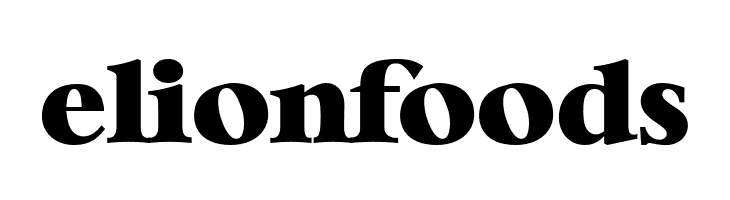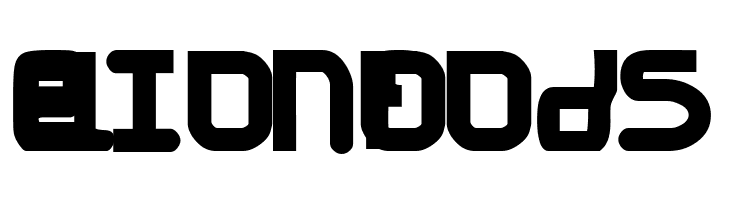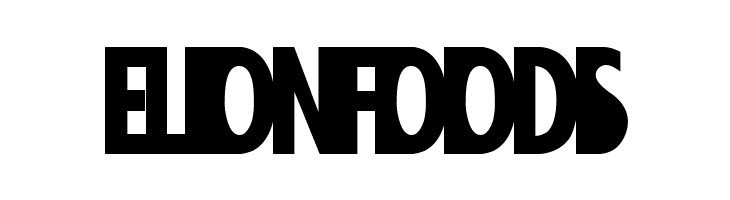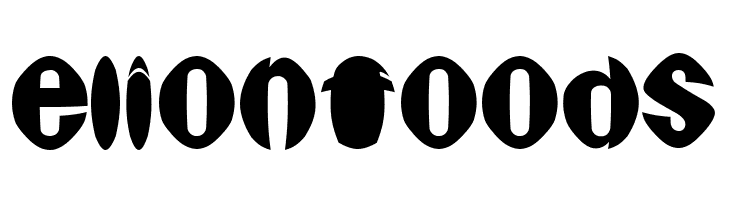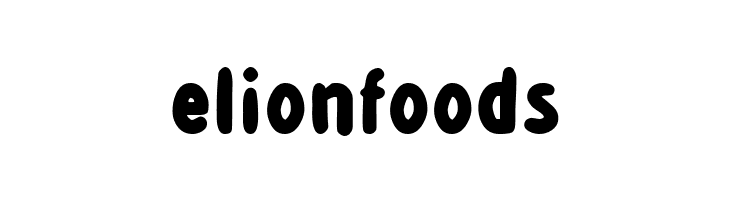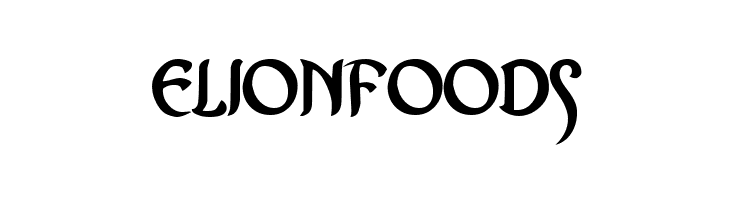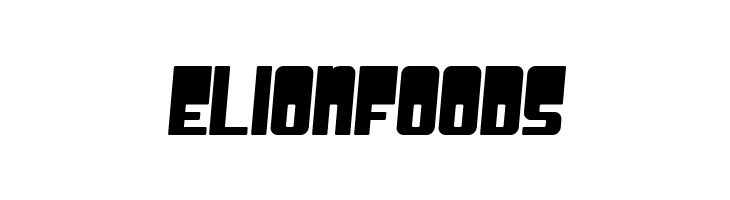
A playful, bold font with rounded edges and a whimsical style.
A bold, geometric font with strong, modern letterforms.
( Fonts by Spork Thug Typography - Josh Wilhelm - www.lifewithouttaffy.com/taffy/blog )
A playful, bold font with wavy, distorted characters for a whimsical look.
( Fonts by Uddi Uddi )
A bold, rounded font with a playful and modern style.
( Fonts by joeBob graff-X )
A playful, bold font with rounded, thick strokes and a whimsical touch.
A bold, Gothic-style font with sharp serifs and dramatic flair.